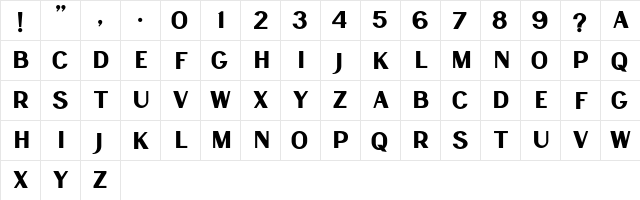
Lancaste Sans Demo Regular
| Foundry | Runsell Studio |
| Designer | Edi Gunawan |
Design Context for Lancaste Sans Demo Typeface
Lancaste Sans Demo is a composed and adaptable typeface that performs quietly and consistently across a wide range of design contexts.